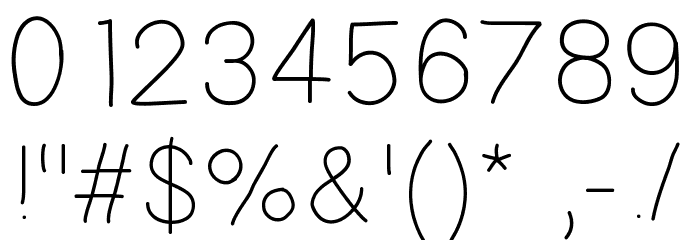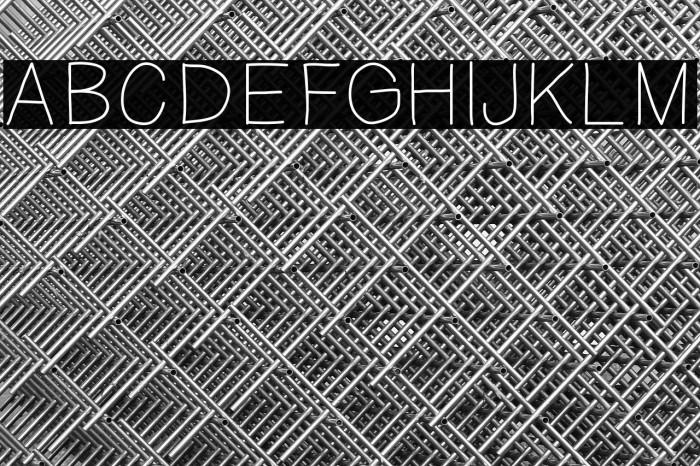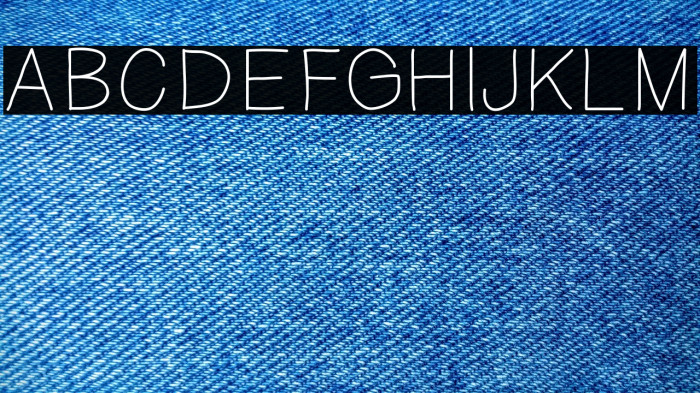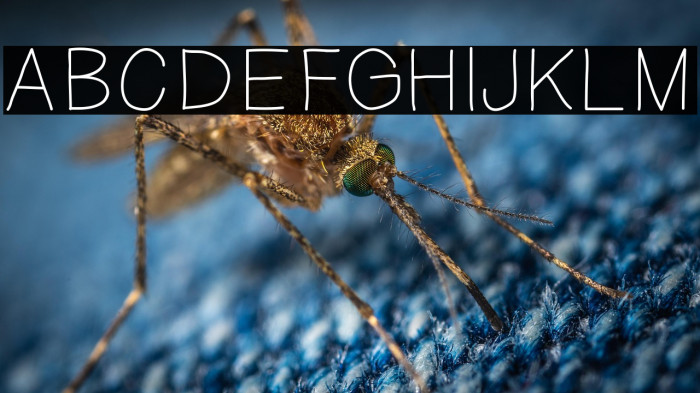
Asswipe Font
Asswipe Description
This font features a clean, minimalist design with a handwritten touch. The letters are thin and slightly irregular, giving a casual and approachable feel. The uppercase and lowercase characters maintain a consistent height, while the numerals are clear and easy to read. Special characters are distinct and well-integrated into the overall style. The font's simplicity and elegance make it versatile for various applications.
| Use Case | Logos, Headlines, Informal text |
| Proposed Projects | Ideal for personal branding, casual invitations, greeting cards, and social media graphics. |